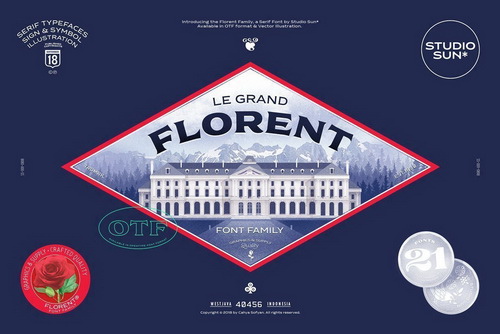
Florent Font
Florent Font is perfect for elegant floral design studios, sophisticated botanical gardens, refined flower shops, graceful wedding planners, luxurious garden centers, and artistic horticultural organizations. Its blooming character makes it ideal for premium floral arrangements, botanical art galleries, elegant greenhouse venues, sophisticated plant nurseries, graceful landscape design firms, and any project requiring botanical elegance with floral sophistication and natural beauty appeal.
This font is exciting because it captures the delicate beauty and natural grace of blooming flowers while delivering exceptional functionality for organizations celebrating botanical artistry, floral design excellence, and the timeless appeal of natural beauty. The gracefully crafted letterforms seem to bloom with organic elegance, creating typography that evokes the gentle beauty of gardens in full flower and resonates with audiences who appreciate natural sophistication and floral artistry.
The Florent Font family typically includes Light, Regular, Medium, and Bold weights with botanical alternates, floral ligatures, and natural decorative elements that enhance its elegant personality. This comprehensive collection enables floral professionals to create sophisticated brand systems that maintain botanical authenticity while offering creative flexibility for various horticultural applications requiring both natural beauty and contemporary garden market positioning.
Whether you're developing identity systems for floral design companies, creating materials for botanical celebrations, or designing promotional content for garden services, Florent Font Free Download delivers the botanical elegance and floral sophistication that connects with audiences seeking natural beauty and garden excellence. Its graceful presence ensures memorable brand recognition across digital platforms and print materials, making it perfect for websites, mobile applications, and botanical campaigns that celebrate floral artistry, natural elegance, and the transformative power of botanical beauty with contemporary sophistication and authentic floral charm.